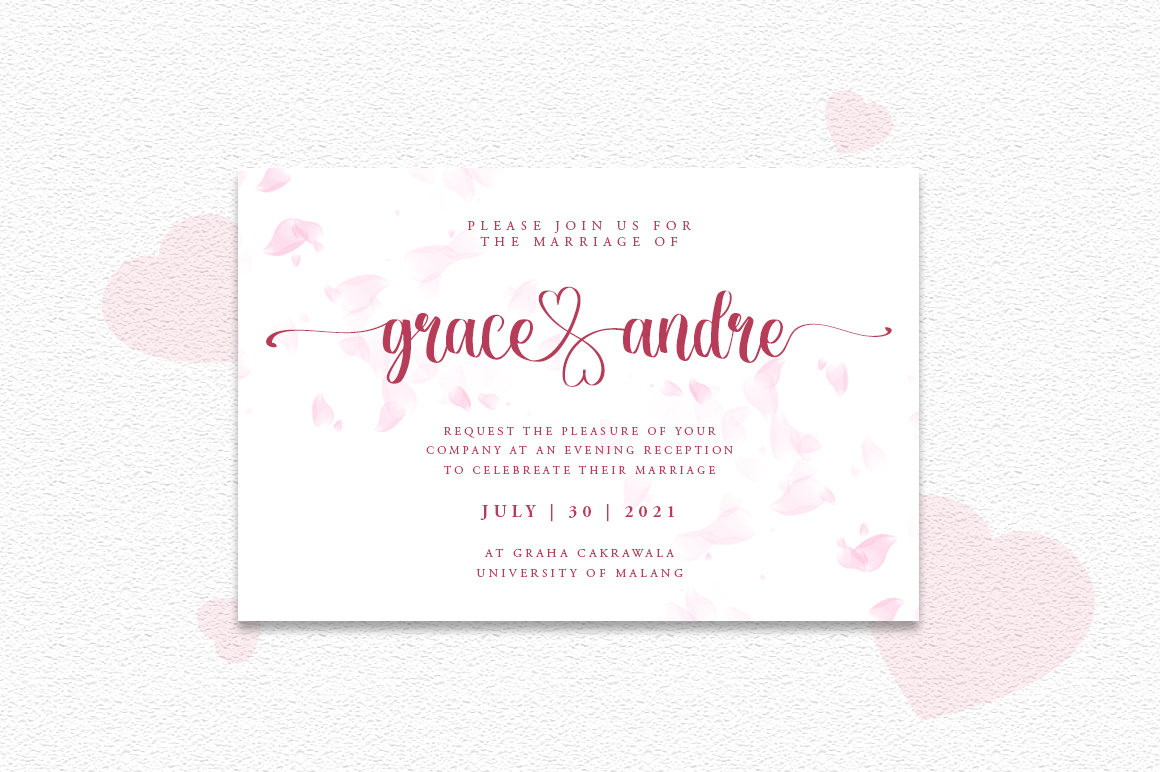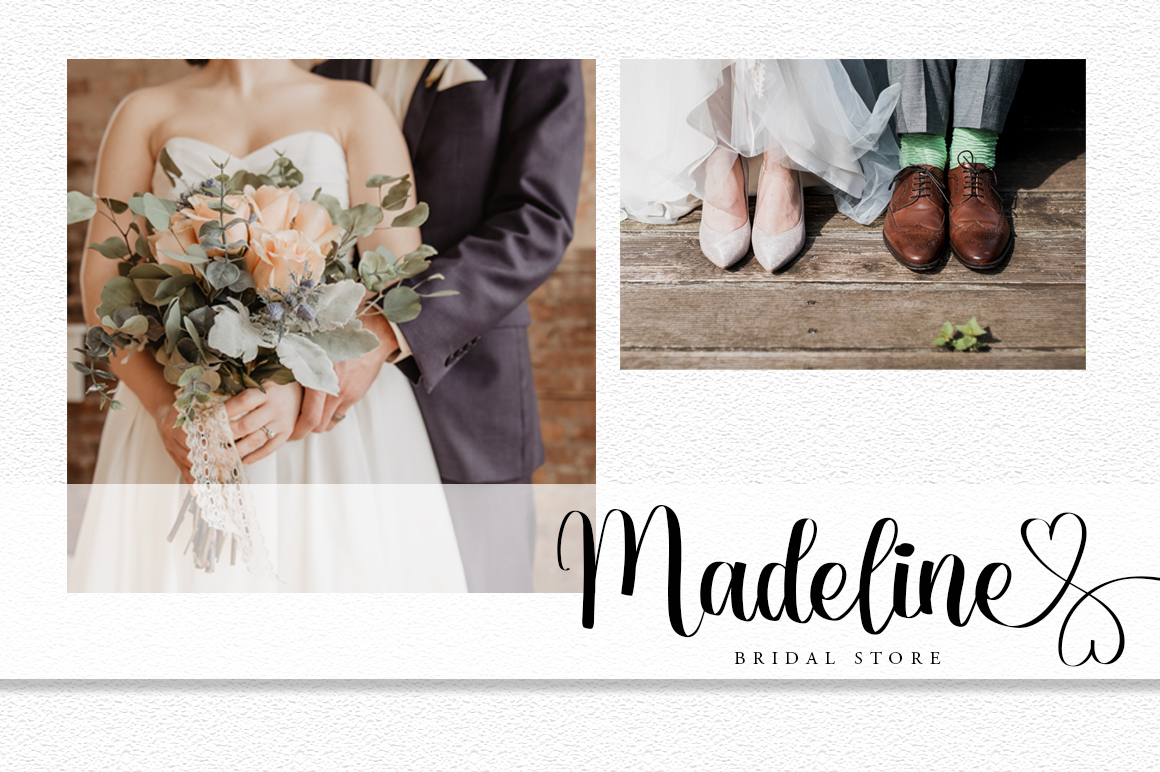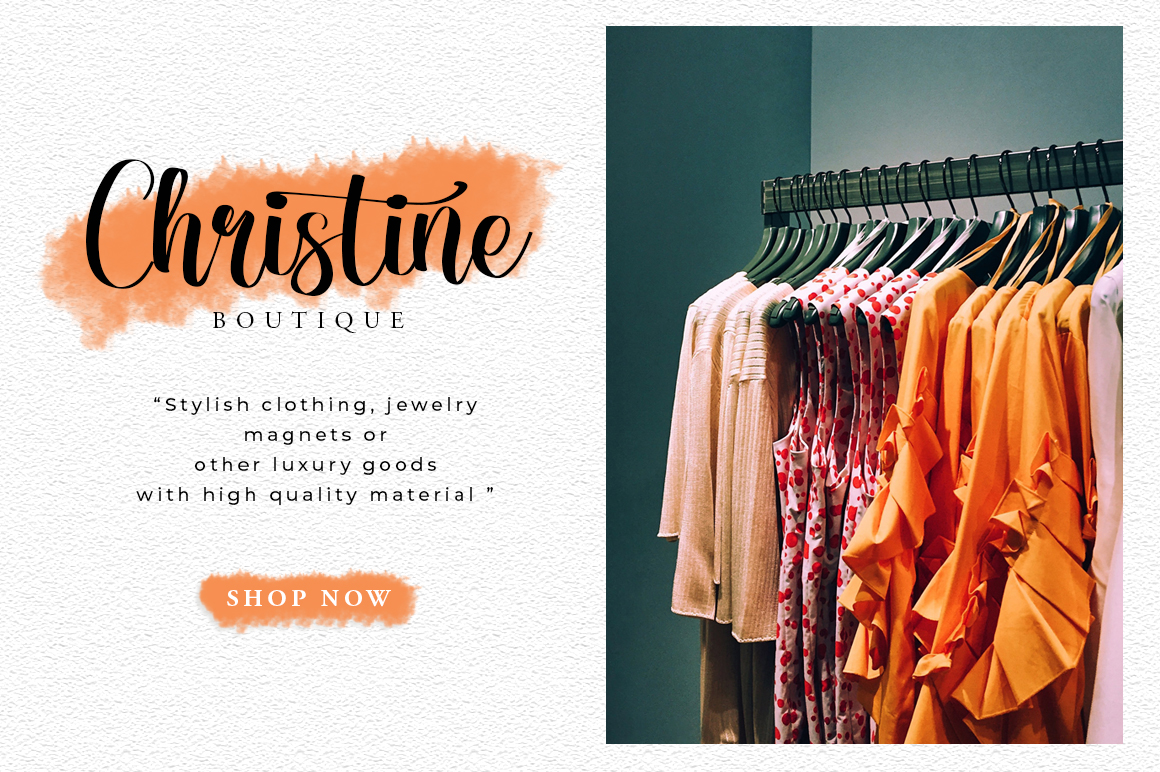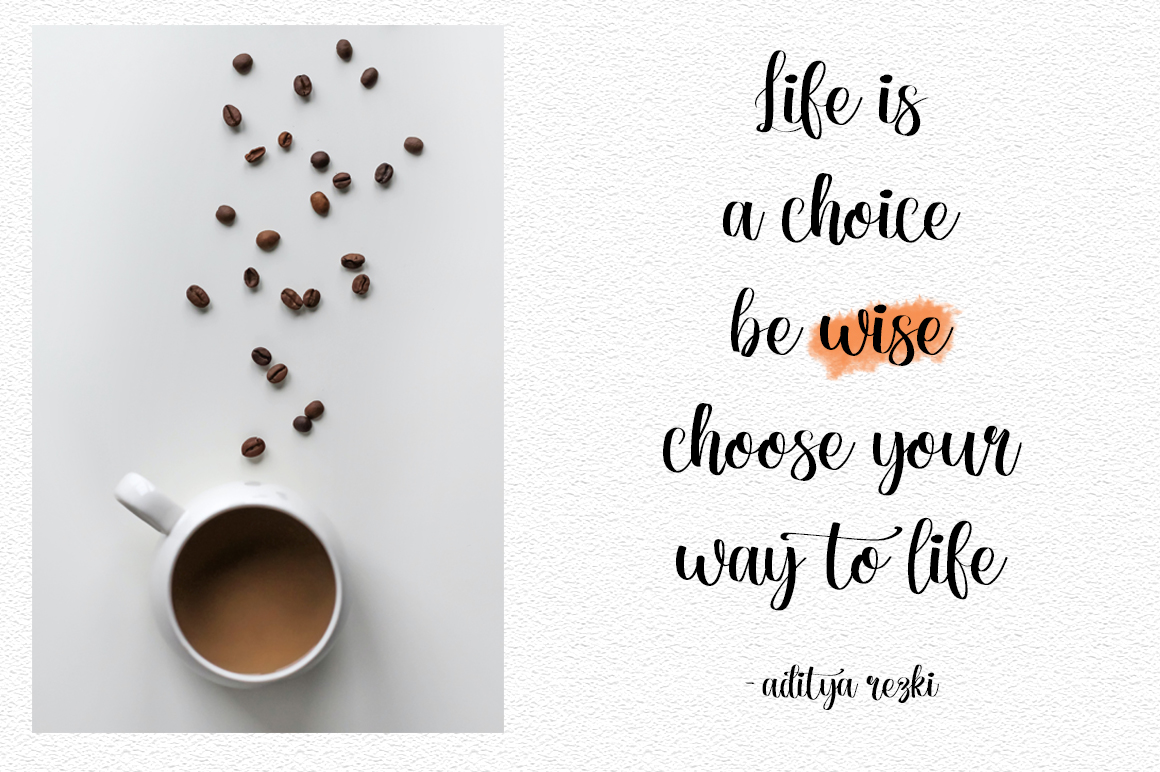
Hiddenlove Free Font
Hiddenlove Free Font is an elegant and flowing handwritten font. It is PUA encoded which means you can access all of the glyphs and swashes with ease! It features a varying baseline, smooth lines, gorgeous glyphs, and stunning alternates. It maintains its classy calligraphic influences while feeling contemporary and fresh. Fall in love with this font and bring your projects to the highest levels. This free typeface was designed by a talented Aditya Rezki. If you like it don’t forget to check out the full version.